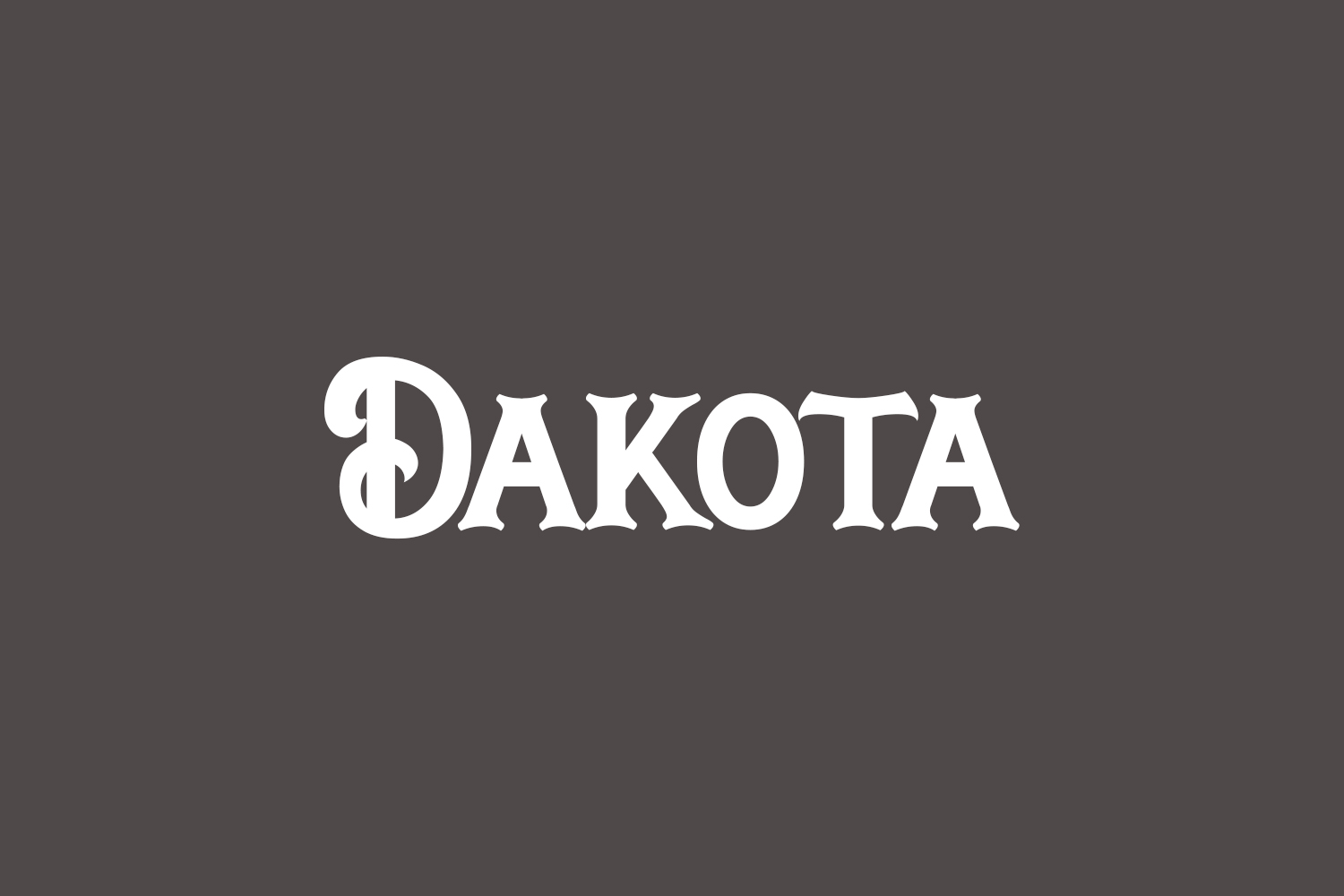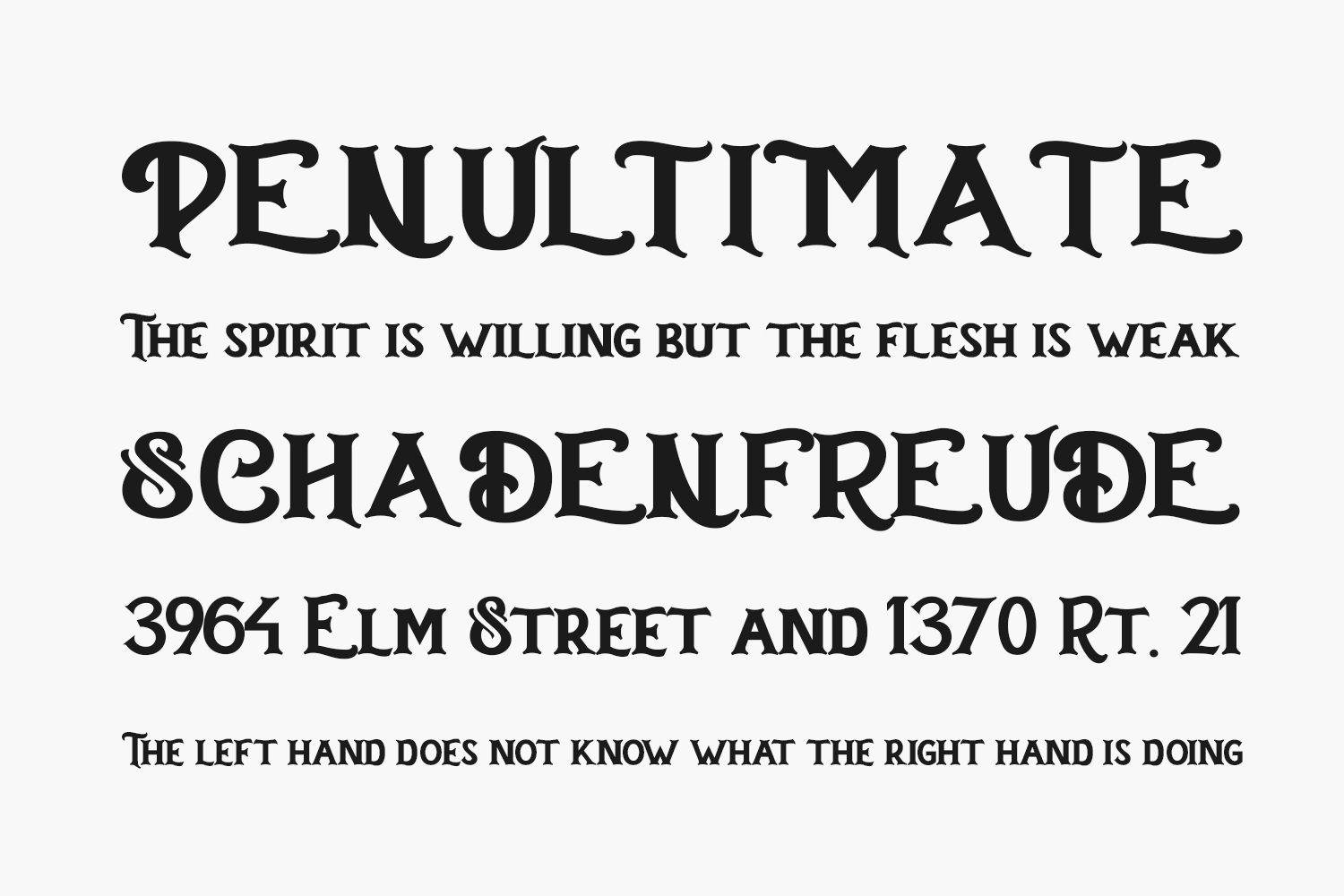
Dakota Free Font is a bold and authentic display font, with an incredibly vintage feel. Add it to your creative ideas and notice how it makes them stand out. Dakota Free Fon was designed by Typotopia Studio and is free for personal use only. Please purchase the full version for commercial use.